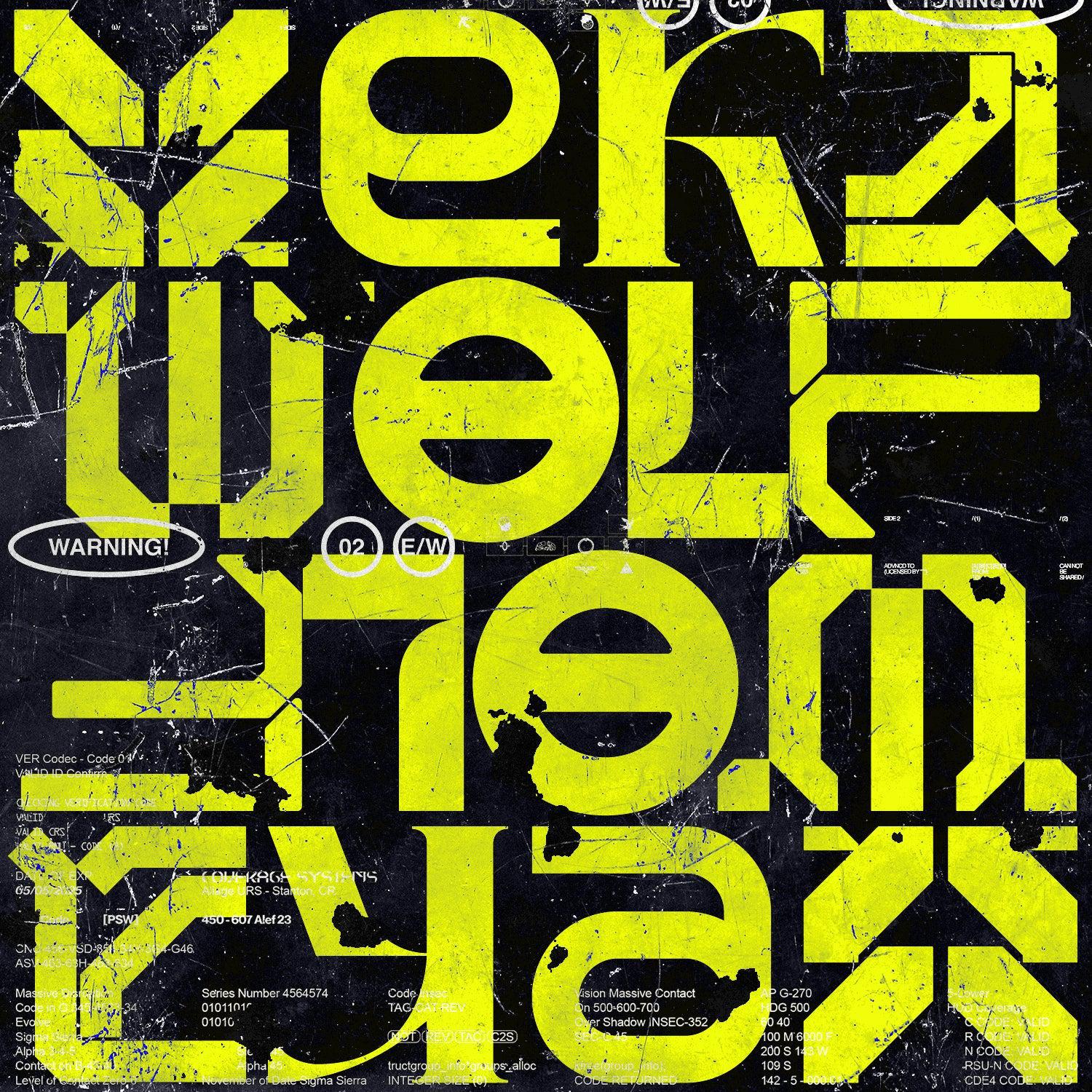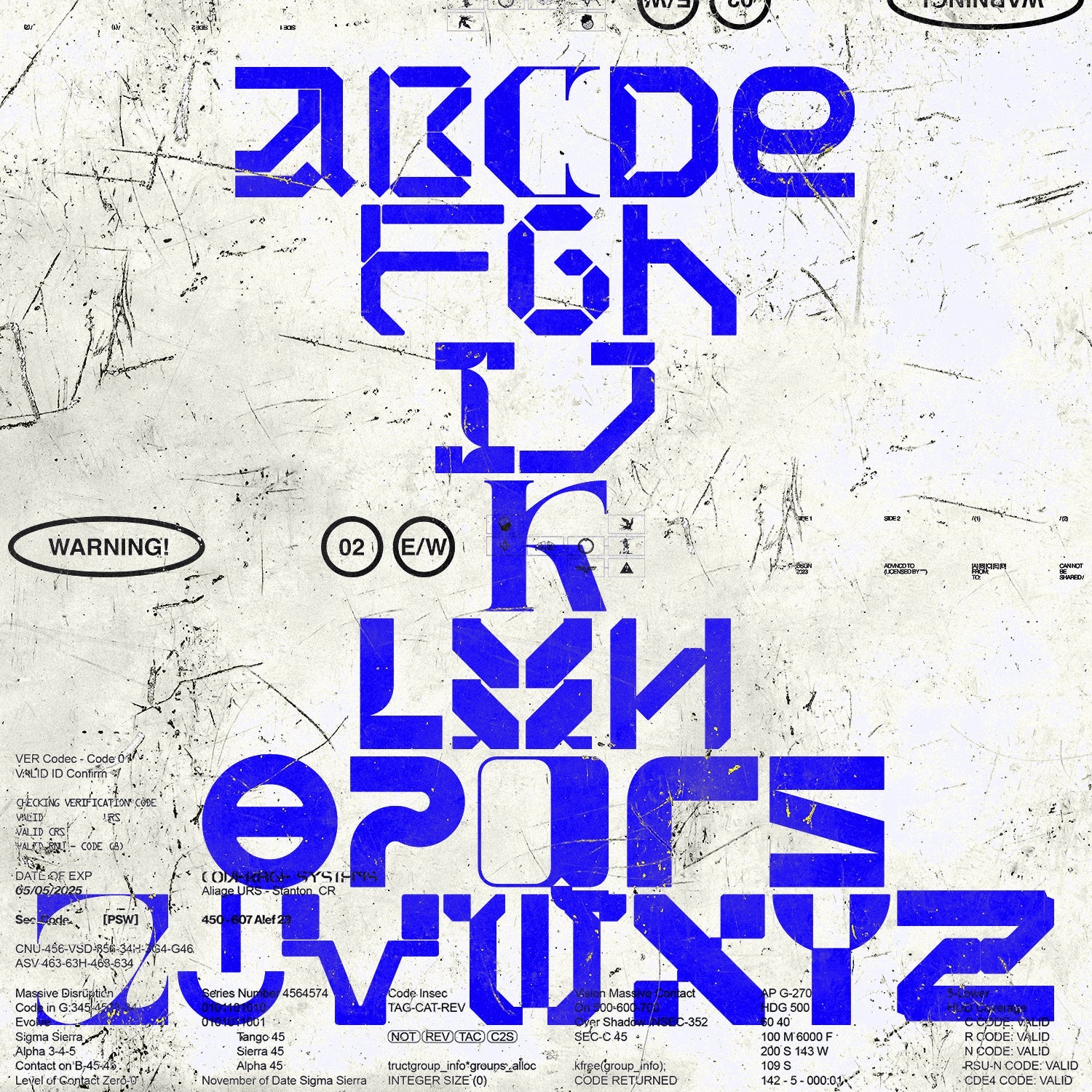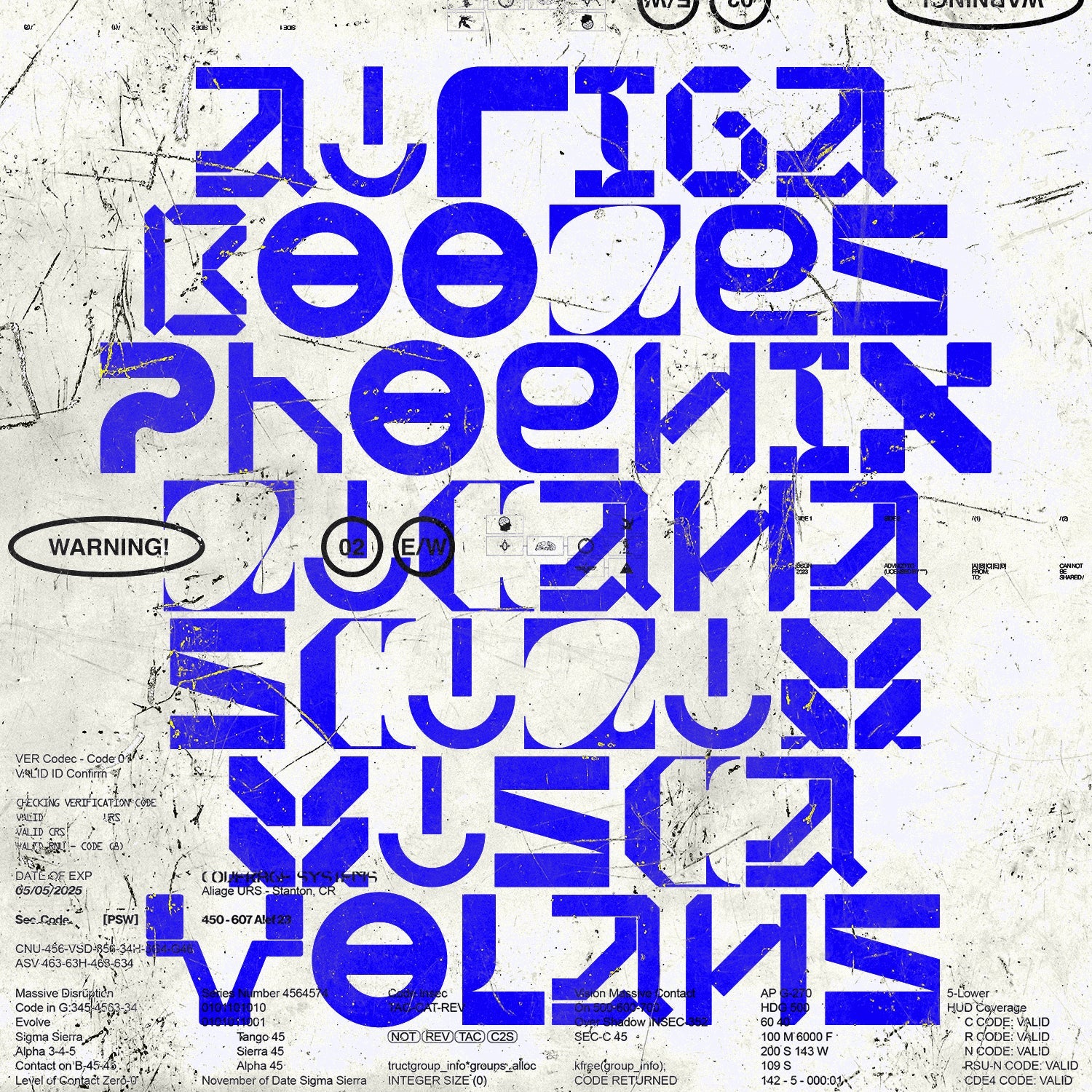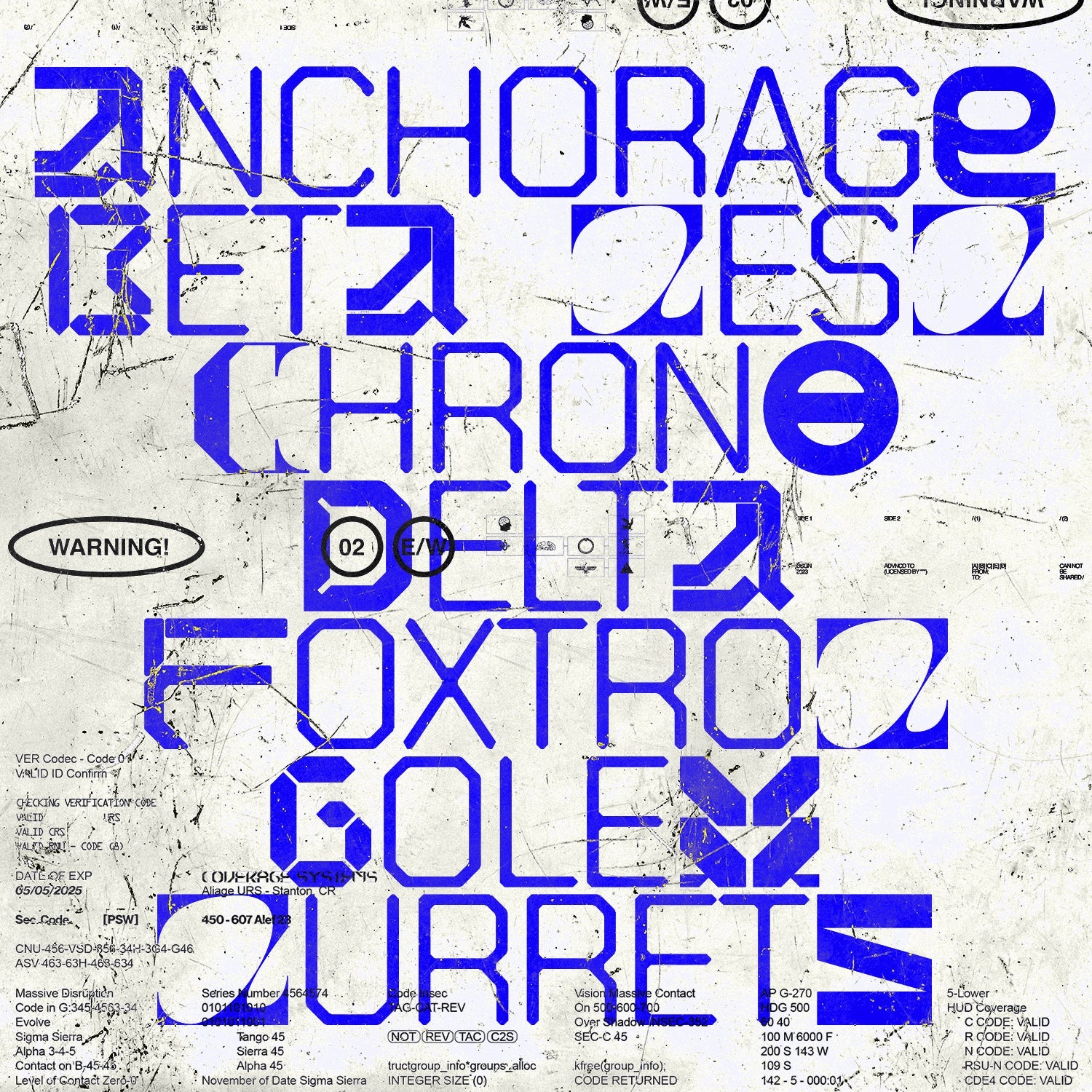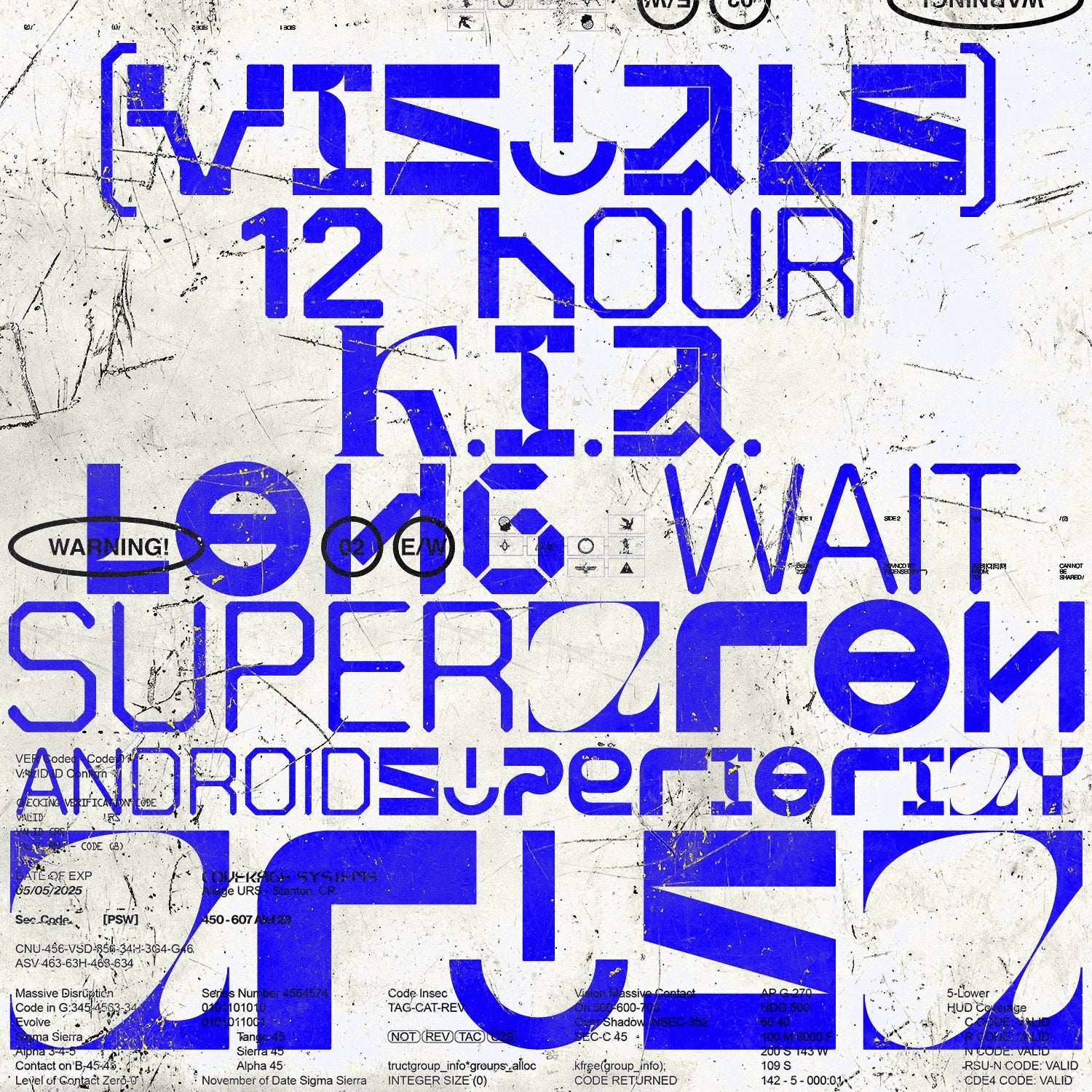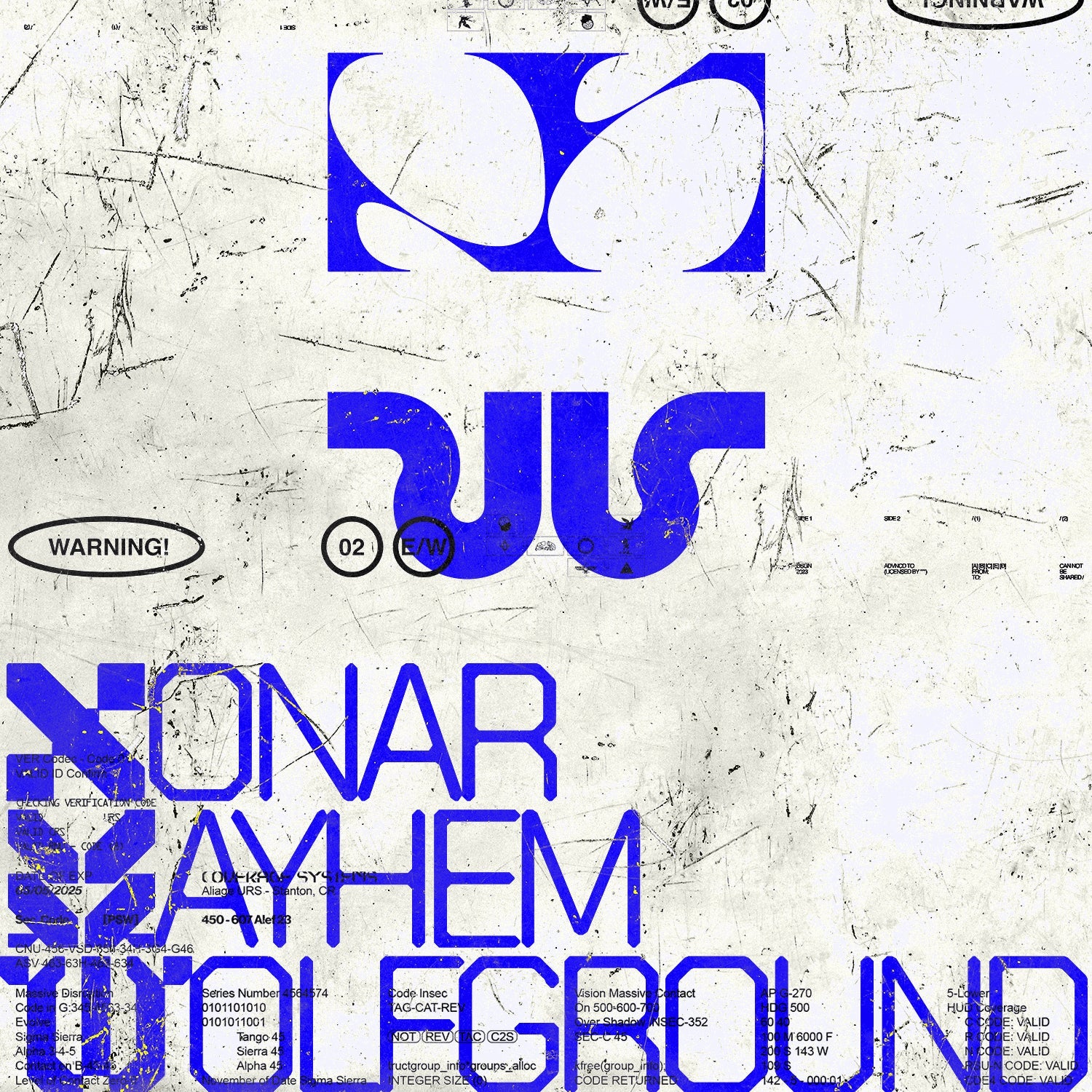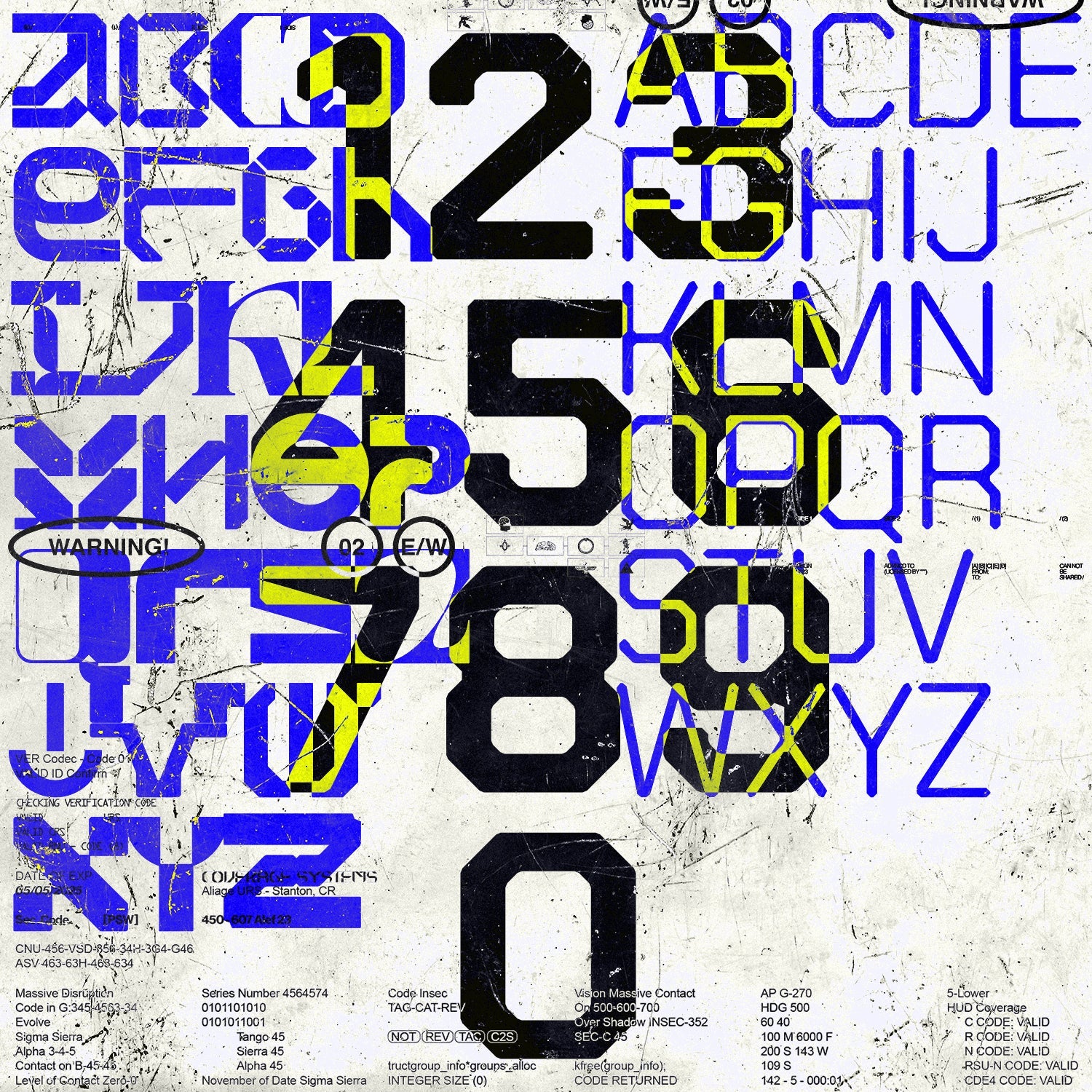
Mekawolf Typeface
Chrphb
Unleash futurism with this chaotic and cosmic font! Each capital letter has a different style but always relevant to the science fiction world. Font suitable for large and effective titles. Lowercase (supporting) letters, uppercase, numbers and basic signs.
The Mekawolf Typeface is a modern, futuristic font featuring a unique style for each capital letter, all themed around science fiction. This typeface includes lowercase letters, uppercase, numbers, and basic signs, making it ideal for large, effective titles.